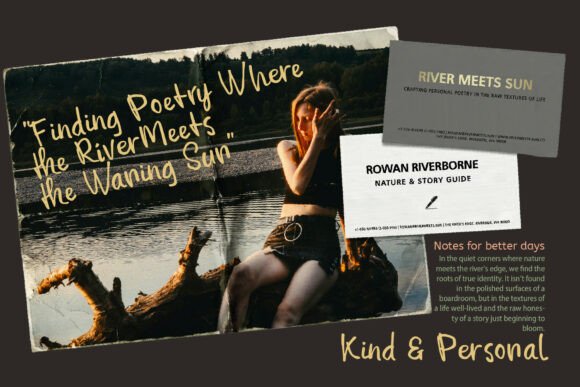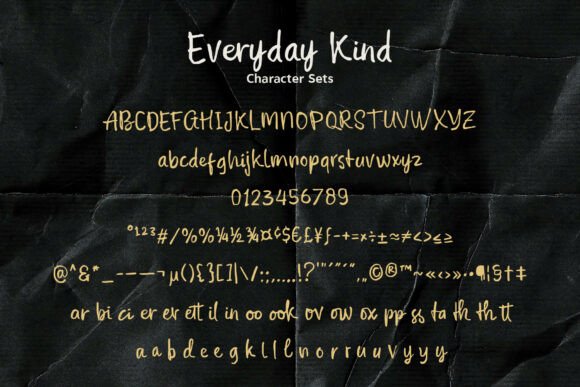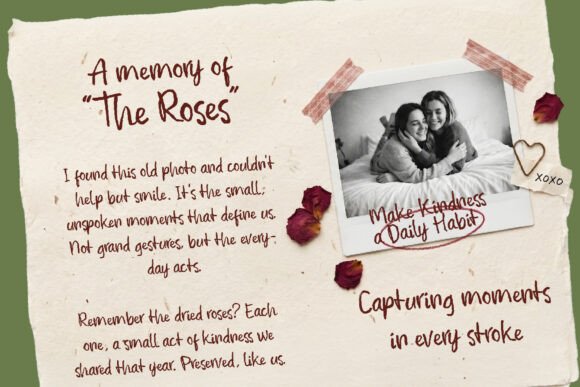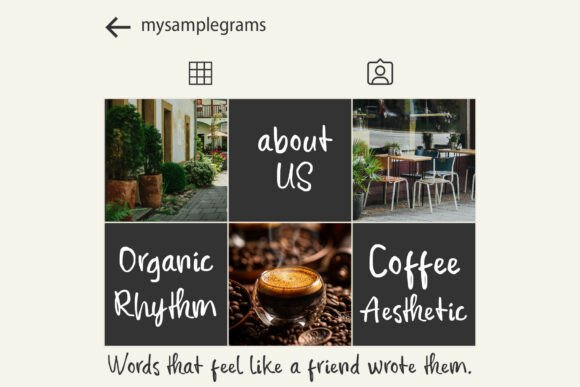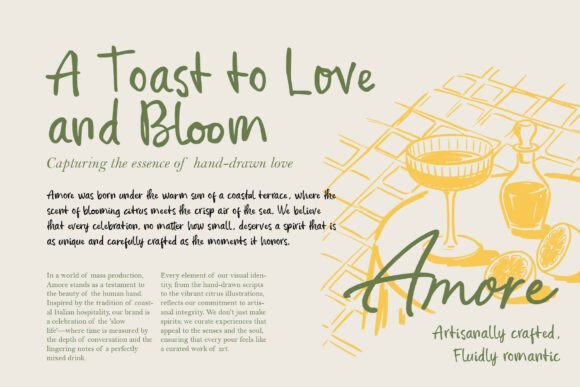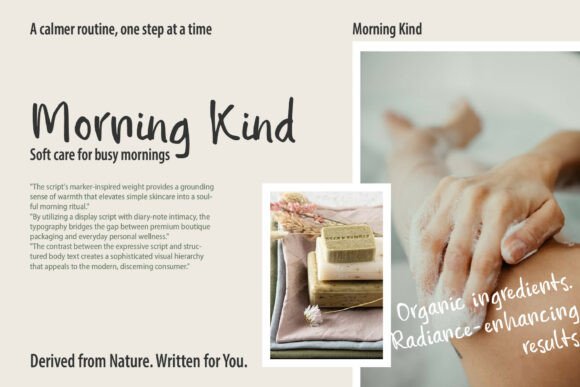
Introducing Everyday Kind: The Ultimate Handwritten Display Typeface for Designers and Crafters
Are you tired of using the same old fonts in your designs and crafts? Look no further than Everyday Kind, a warm and inviting handwritten display typeface that’s perfect for bringing a touch of personality to your artwork. With its intuitive design and extensive character set, Everyday Kind is the perfect choice for designers and crafters looking to add a little extra something special to their projects.
What is Everyday Kind?
Everyday Kind is a meticulously designed handwritten display typeface that’s all about evoking a sense of tranquility and warmth. Its gentle, flowing lines and curves make it perfect for use in a wide range of projects, from crafting and scrapbooking to graphic design and digital art. Whether you’re looking to create something beautiful and elegant or fun and playful, Everyday Kind is the perfect choice.
Key Features of Everyday Kind
So what sets Everyday Kind apart from other fonts on the market? Here are just a few of its key features:
• 100% PUA Encoded: Everyday Kind is 100% PUA (Private Use Area) encoded, which means that it includes a vast range of special characters and alternates that can be accessed without the need for advanced design software. With over 270+ glyphs to choose from, you can add endless variety and interest to your designs.
• Intuitive Design: Everyday Kind has been designed with the user in mind. Its intuitive design makes it easy to use, even for those who are new to working with fonts.
Unlocking the Full Potential of Everyday Kind
Why Choose Everyday Kind?
So why should you choose Everyday Kind for your design and crafting needs? Here are just a few reasons:
• Unique and Expressive: Everyday Kind is a truly unique and expressive font that’s sure to add a touch of personality to your designs and crafts.
• Ease of Use: With its intuitive design and extensive character set, Everyday Kind is easy to use, even for those who are new to working with fonts.